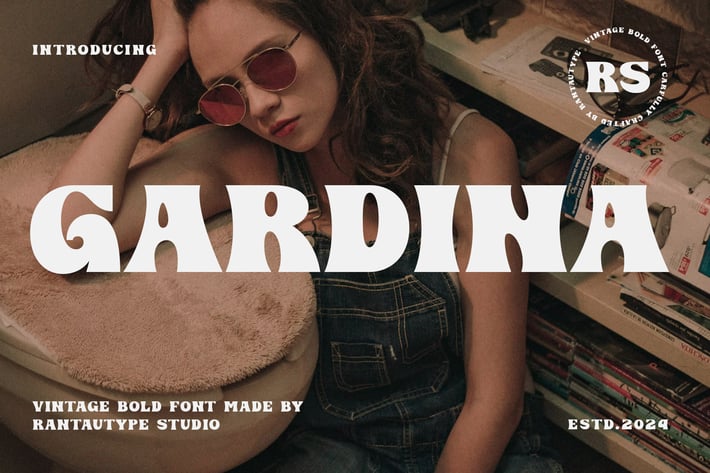
Gardina Bold Vintage Font
Gardina is bold vintage font made by rantautype studio. Gardina is a perfectly choice for any creative endeavor, chic, lifestyle design such as logotype, advertisements, watermark on photography, stationery, branding project, display and magazine, invitation, corporate brand, product design, label, business project and many other project with modern touch.